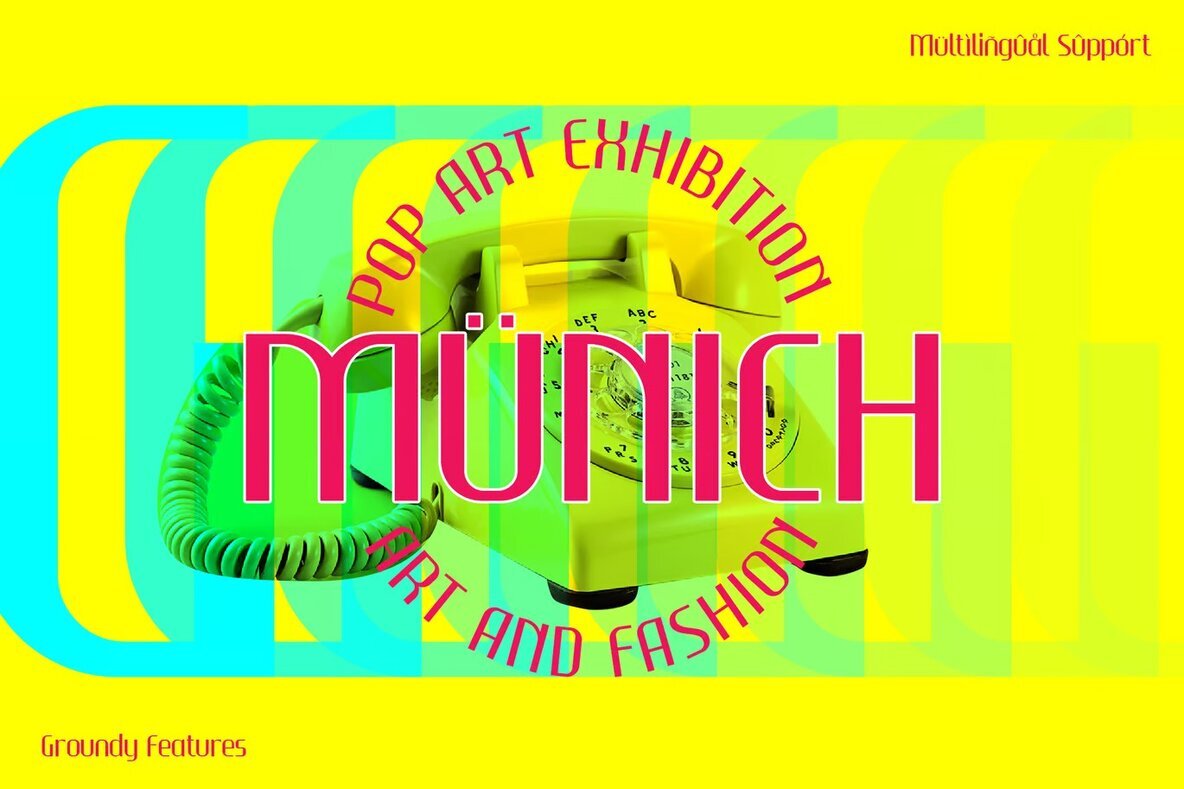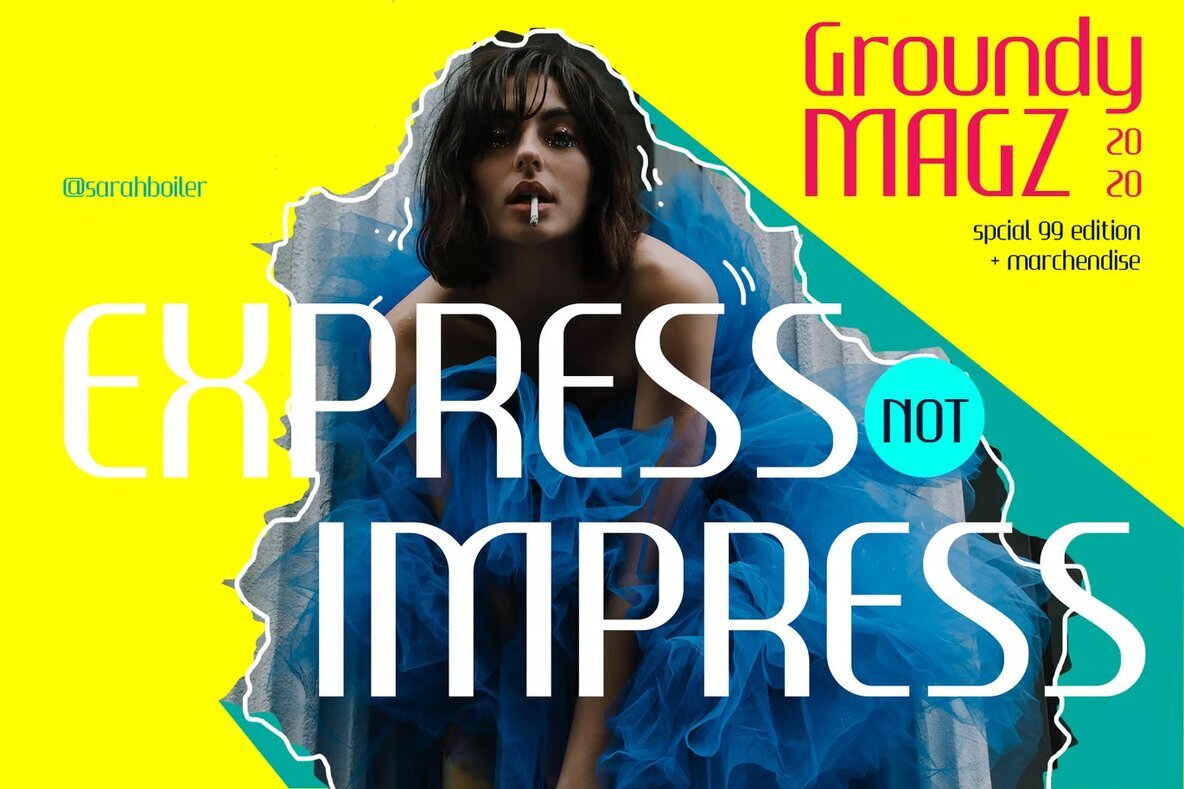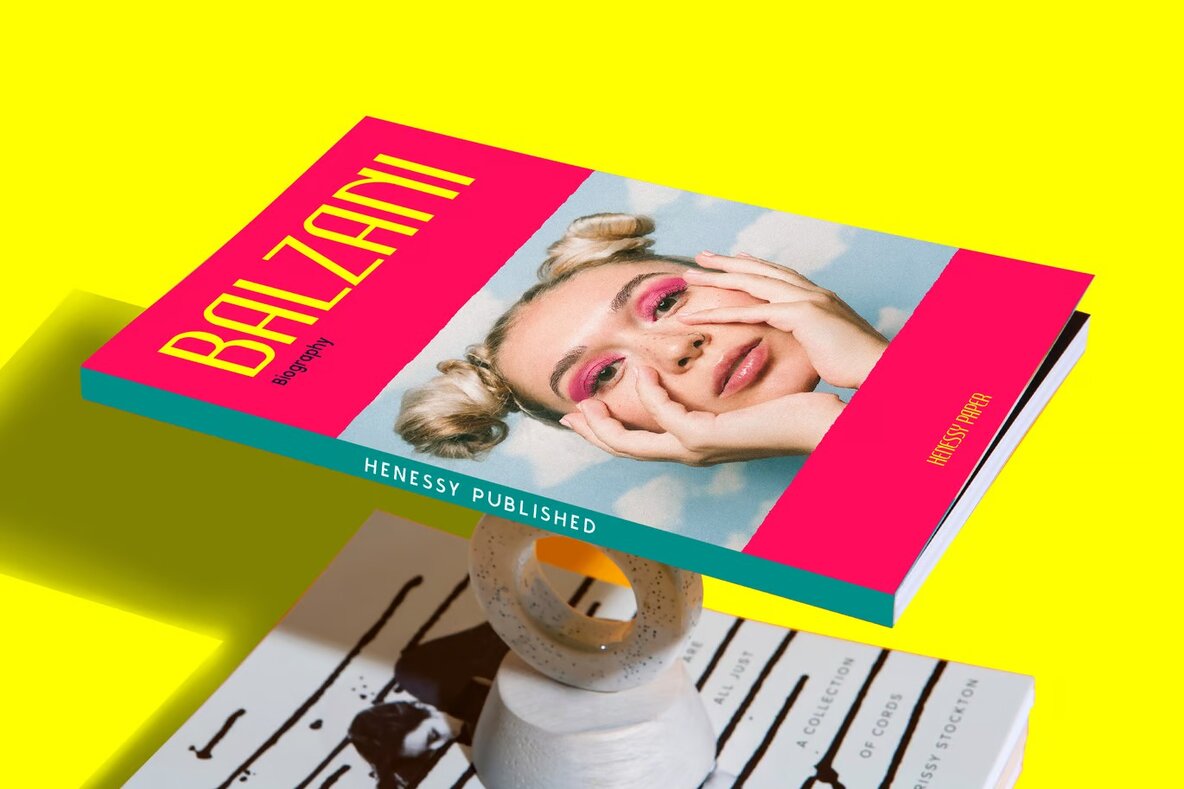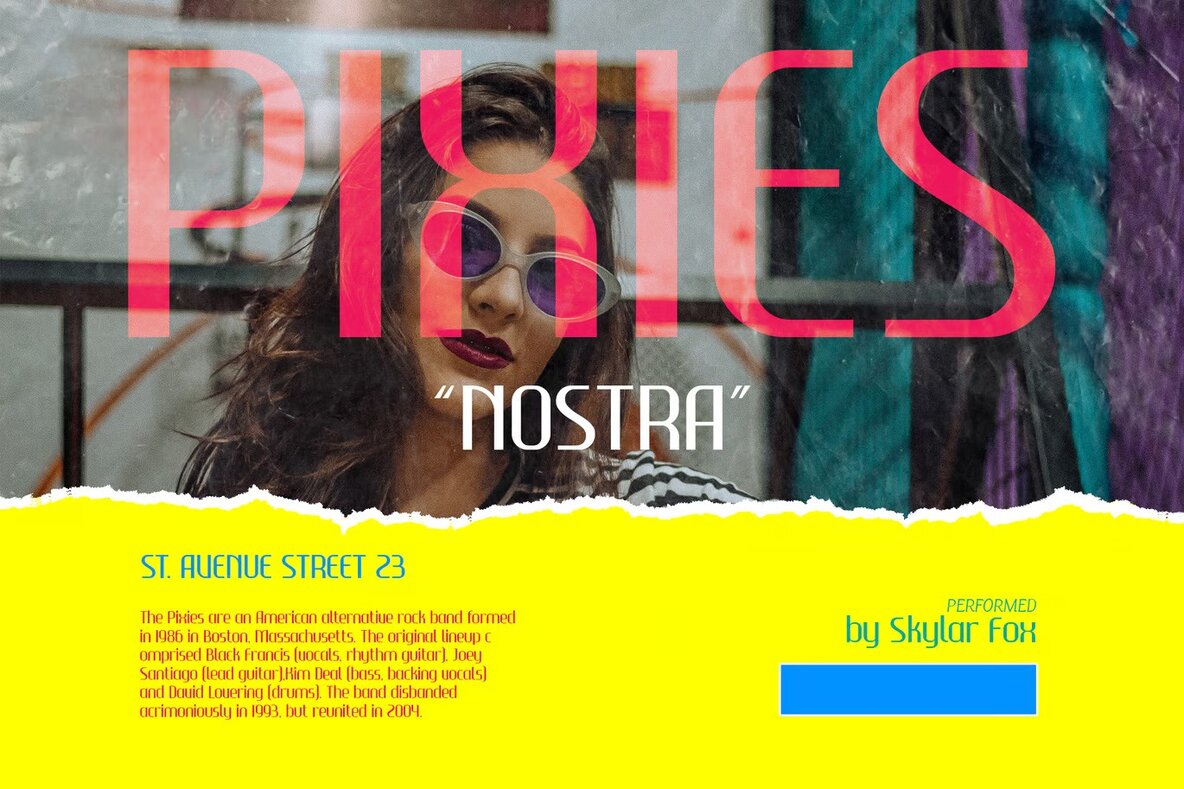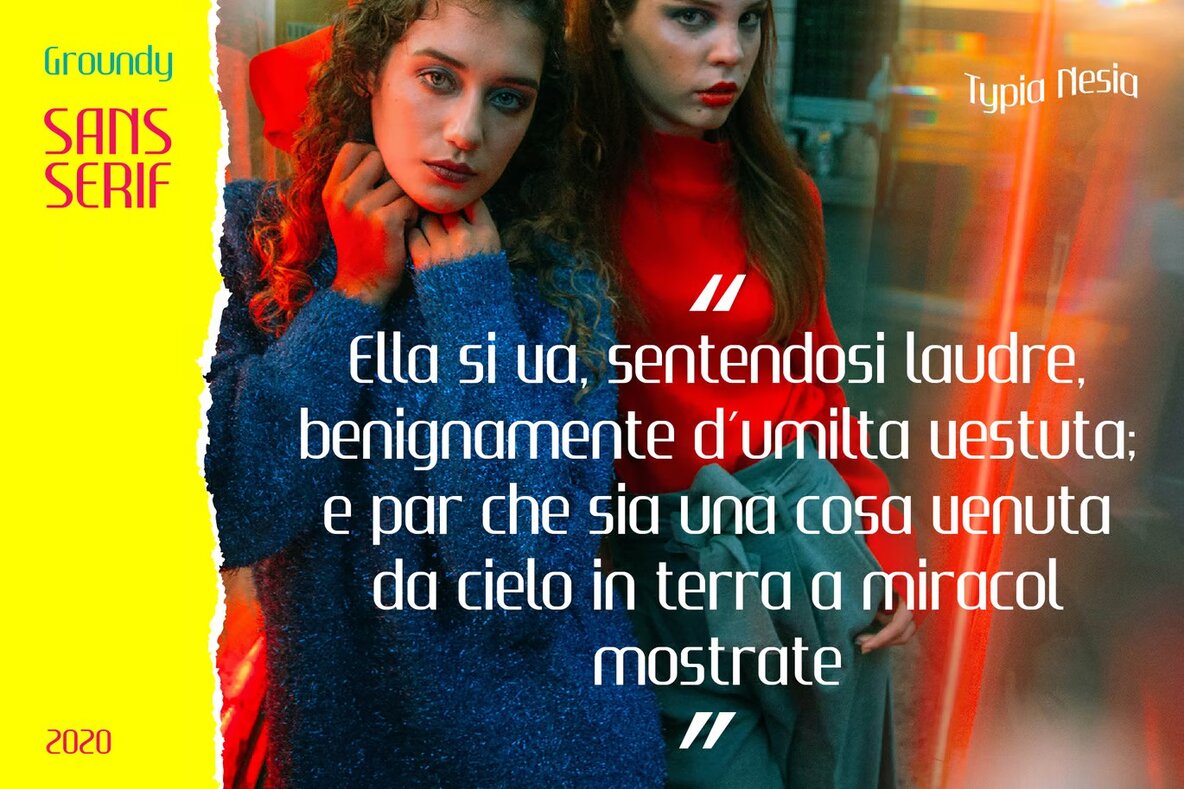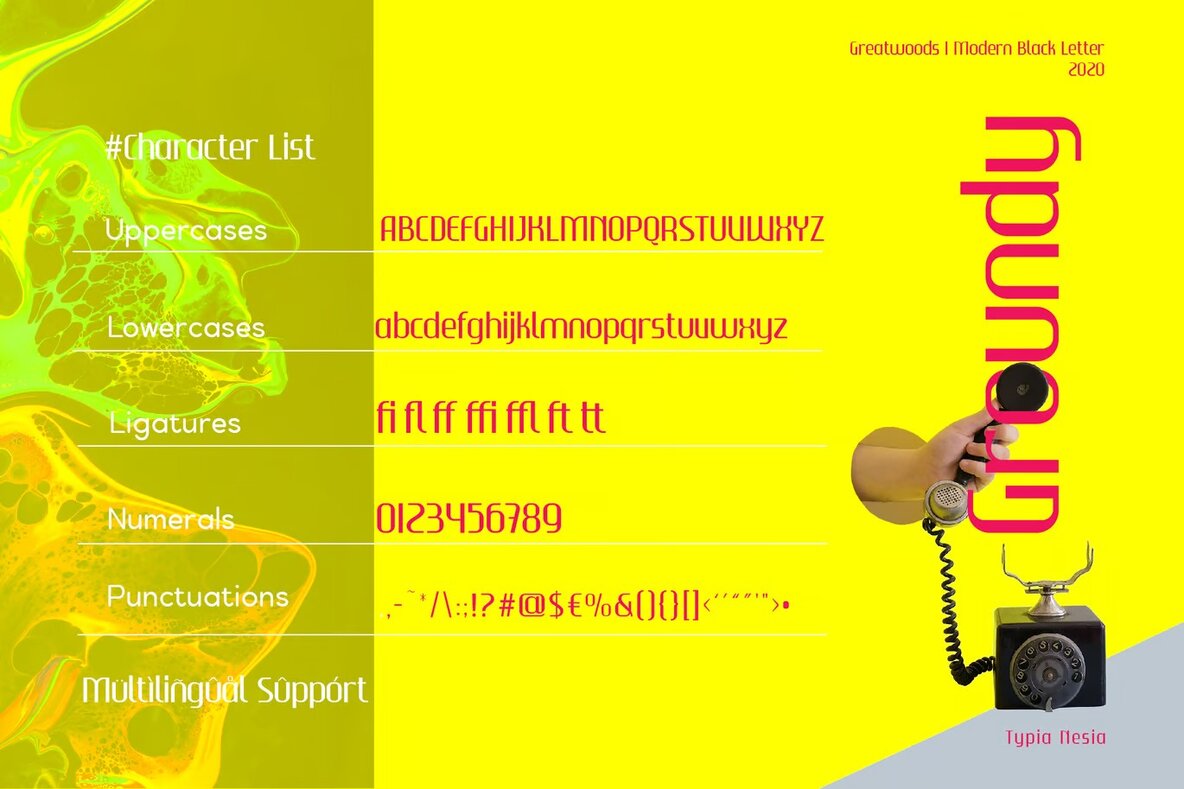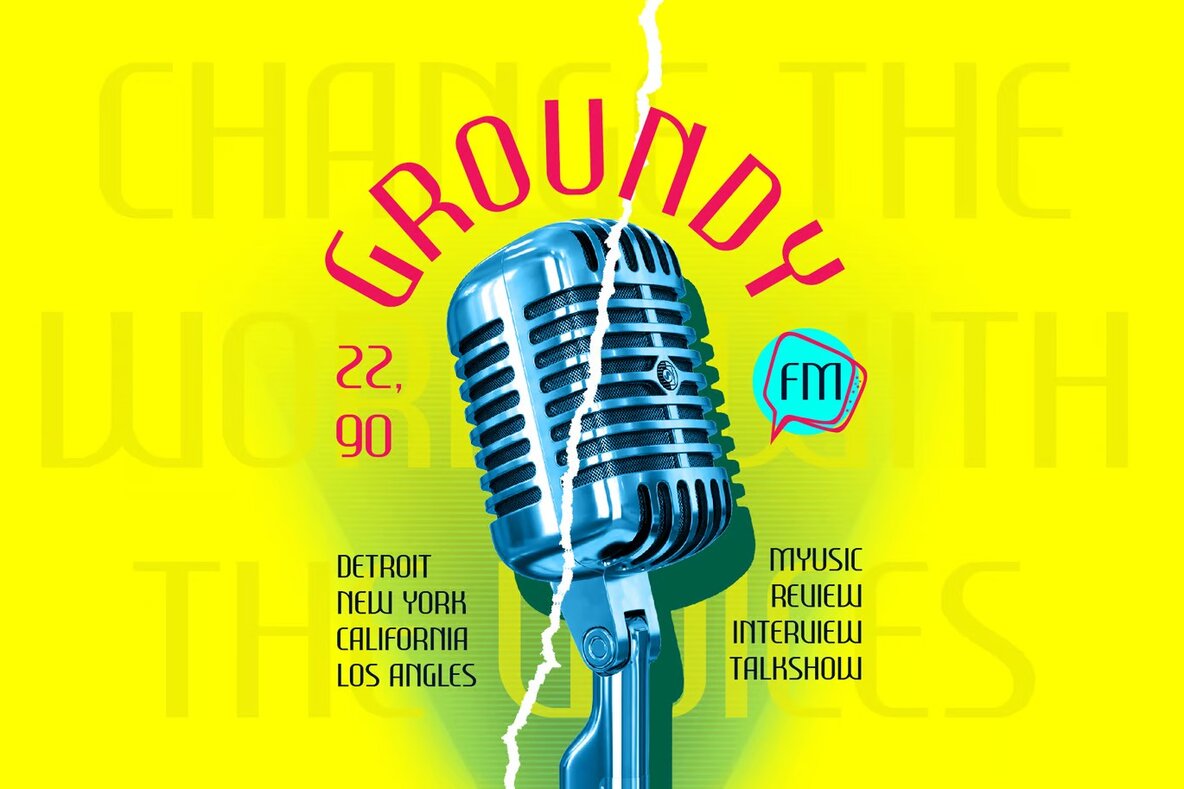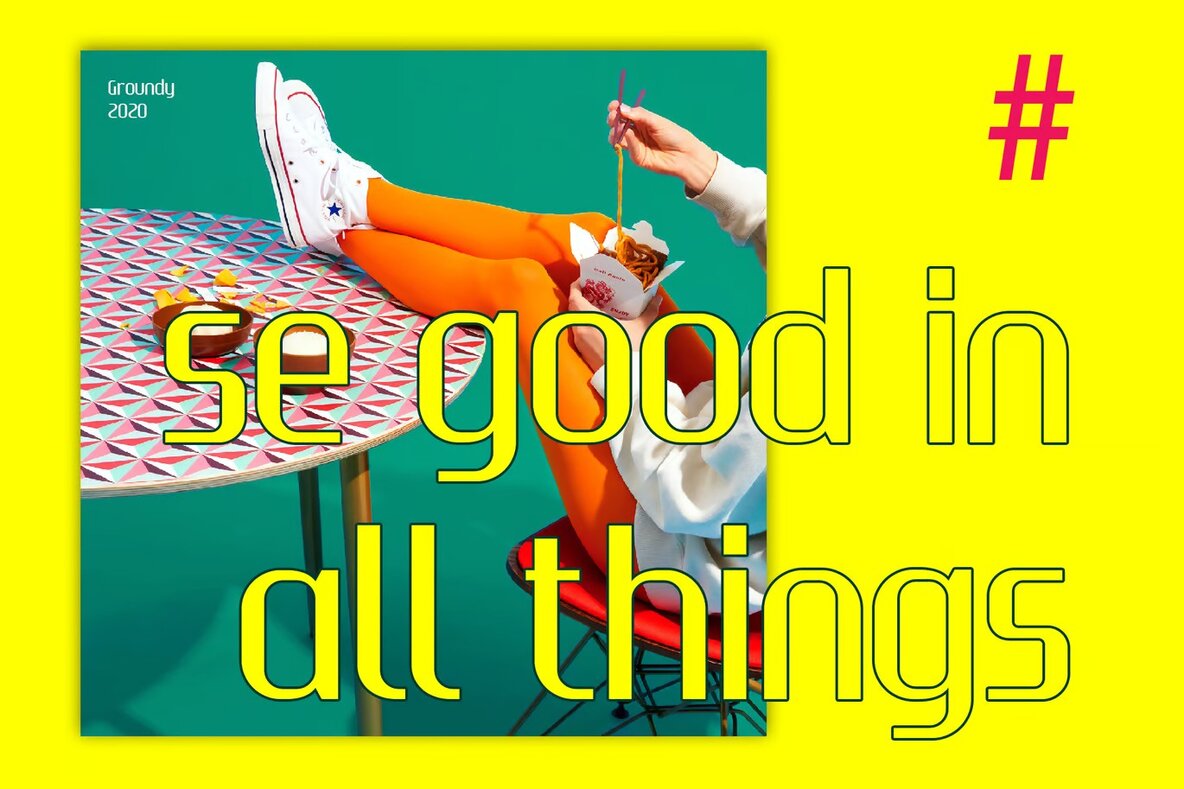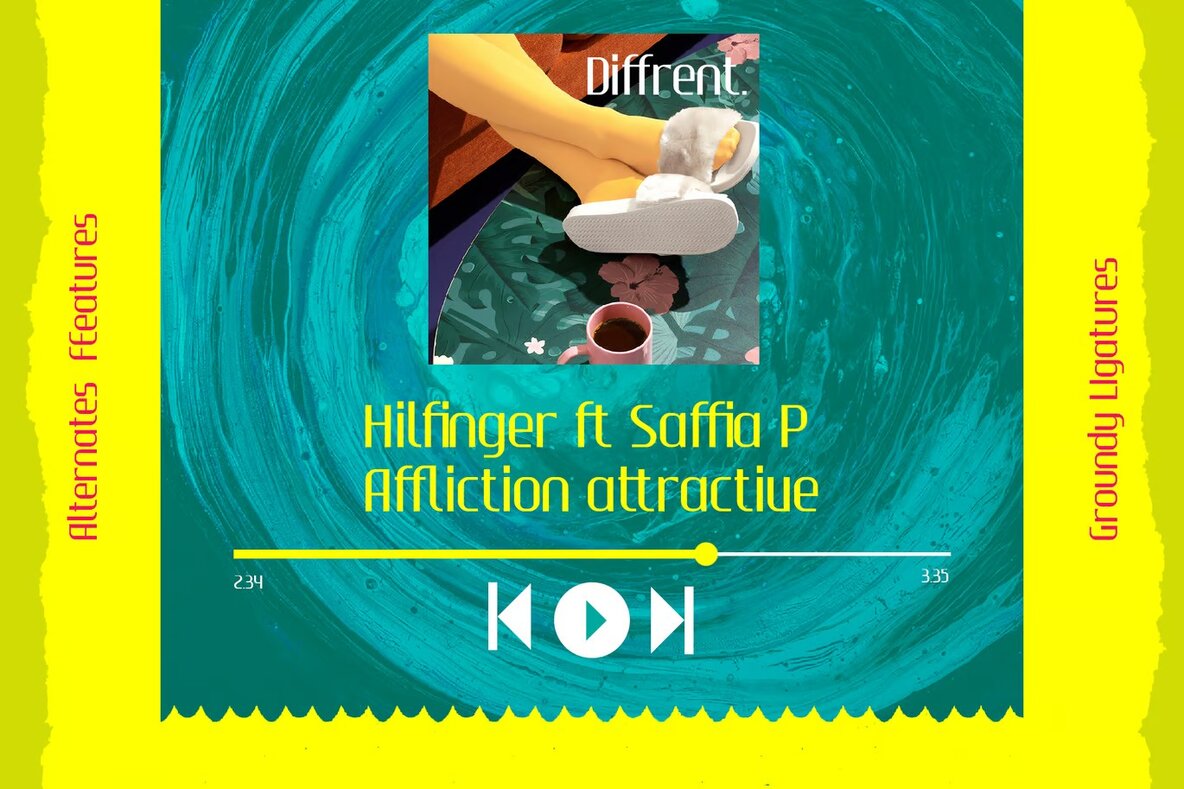
Groundy Font
Groundy Regular
Groundy Sans is a groovy and fancy sans serif font that's ideal for a variety of creative projects. It fits perfectly in luxury logo branding, editorial layouts, and stationery design. Groundy brings elegance to modern fashion campaigns, salon beauty ads, and feminine advertising. With its versatile style, it's also a great choice for designing blogs, websites, invitations, and art quotes.
Groundy Sans excels in home decor applications, book or cover titles, and adds a distinctive touch to special events like weddings and birthdays. Its chic and contemporary design makes it a versatile choice for designers looking to create impactful and stylish visuals. Consider it for any project that demands a blend of sophistication and modern flair.